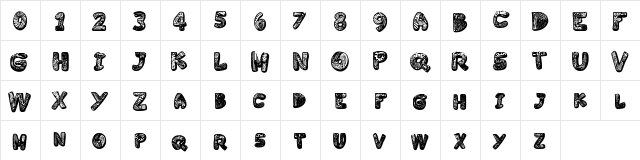
Variety Medium Free Font
Variety Medium
Design Context for Variety
Variety is a composed and adaptable typeface that performs quietly and consistently across a wide range of design contexts.
Pro Tip: Use Variety in both headline and body roles to test its range before committing to a single application.